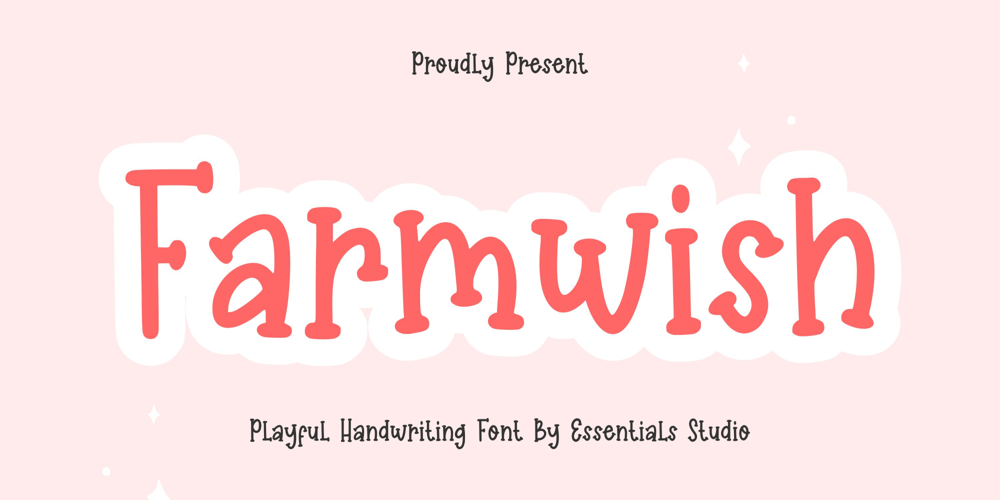
Farmwish
Farmwish font
Farmwish Font Family was designed by Annas Rifky Anhar and published by Essentials Studio. Farmwish contains 1 styles and family package options. Farmwish Is A Playful FontFarmwish is perfect for product packaging, branding project, magazines, social media, weddings, or just used to express words above the background.